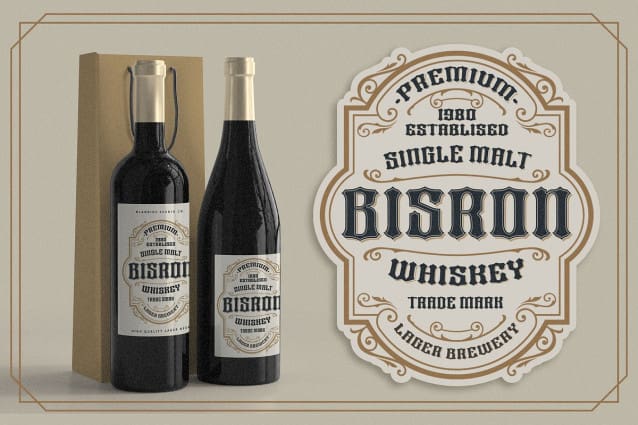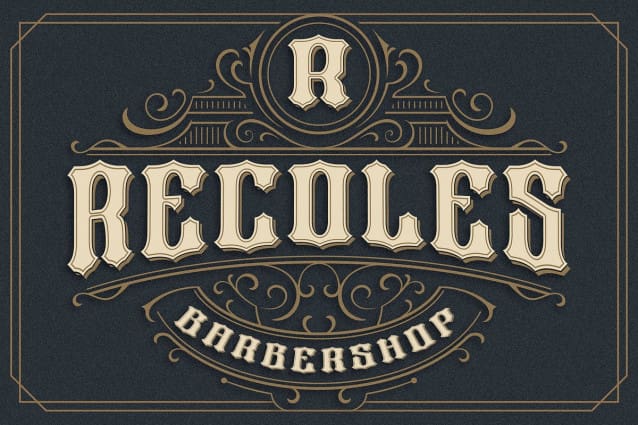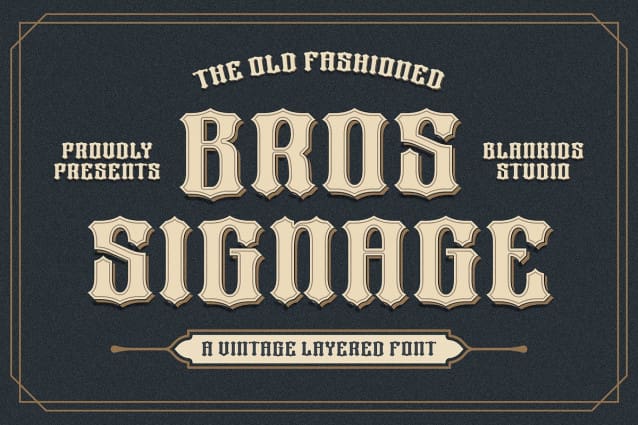
Bros Signage Font
Bros Signage Font a Vintage Layered Font, Inspiring from old signage typography. This font is perfect for a design that makes it more attractive and playful. made with a very good level of aesthetics making this font suitable for book cover, poster, packging, merchandise, logotype and much more.